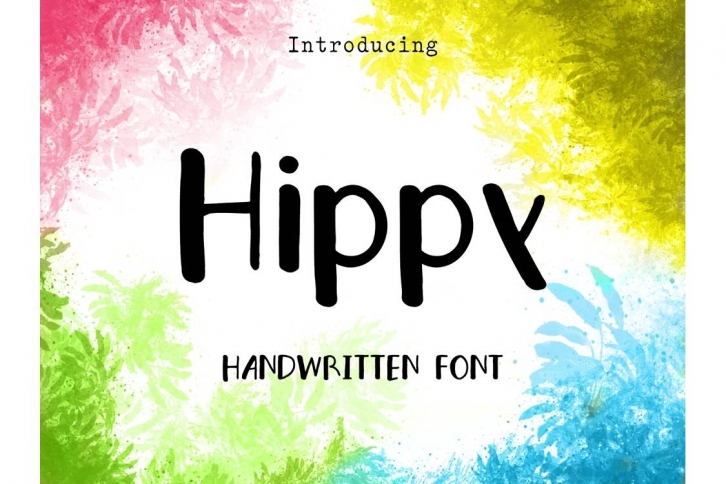
Hippy is a beautiful font that was designed by futureisyesterday. It's a great choice for designers and creatives who need such a font. It was released on October 2, 2016 and the file size is 13.9 MB. Hippy may give a more youthful, expressive and casual look to your project. It is a very beautiful, refined, elegant, and high-quality font.